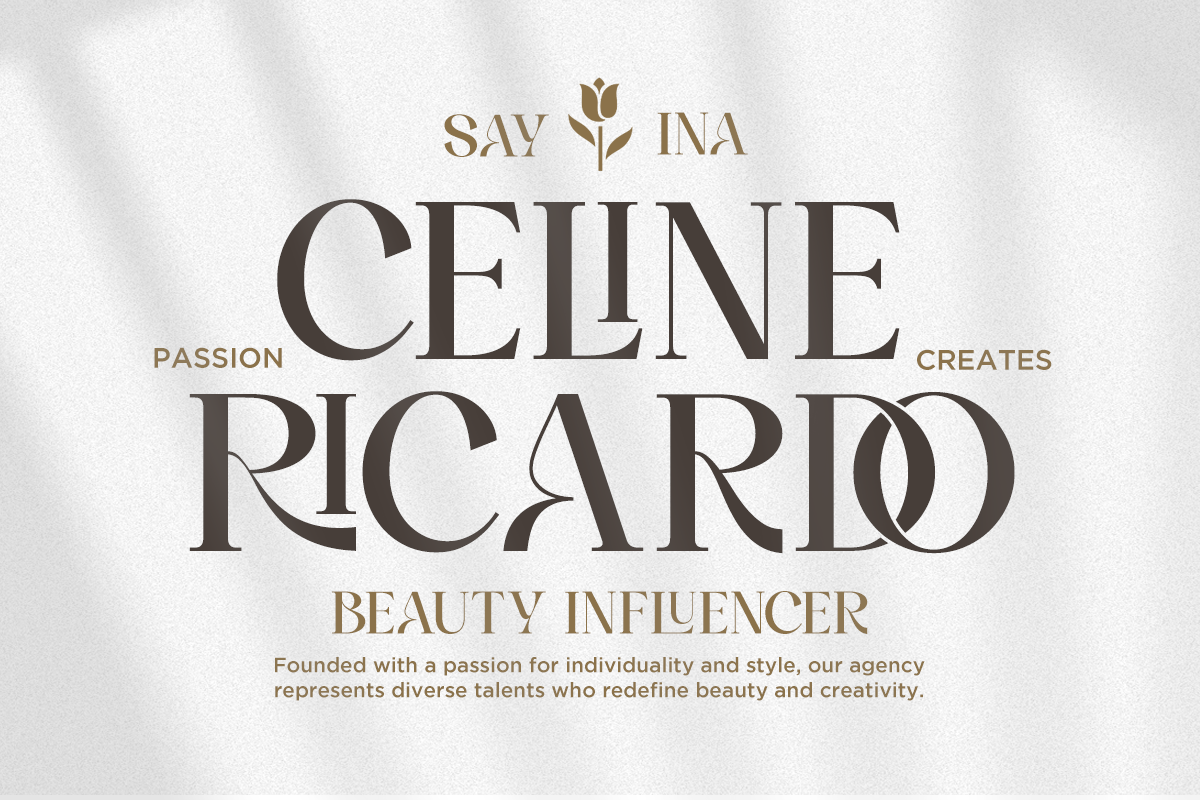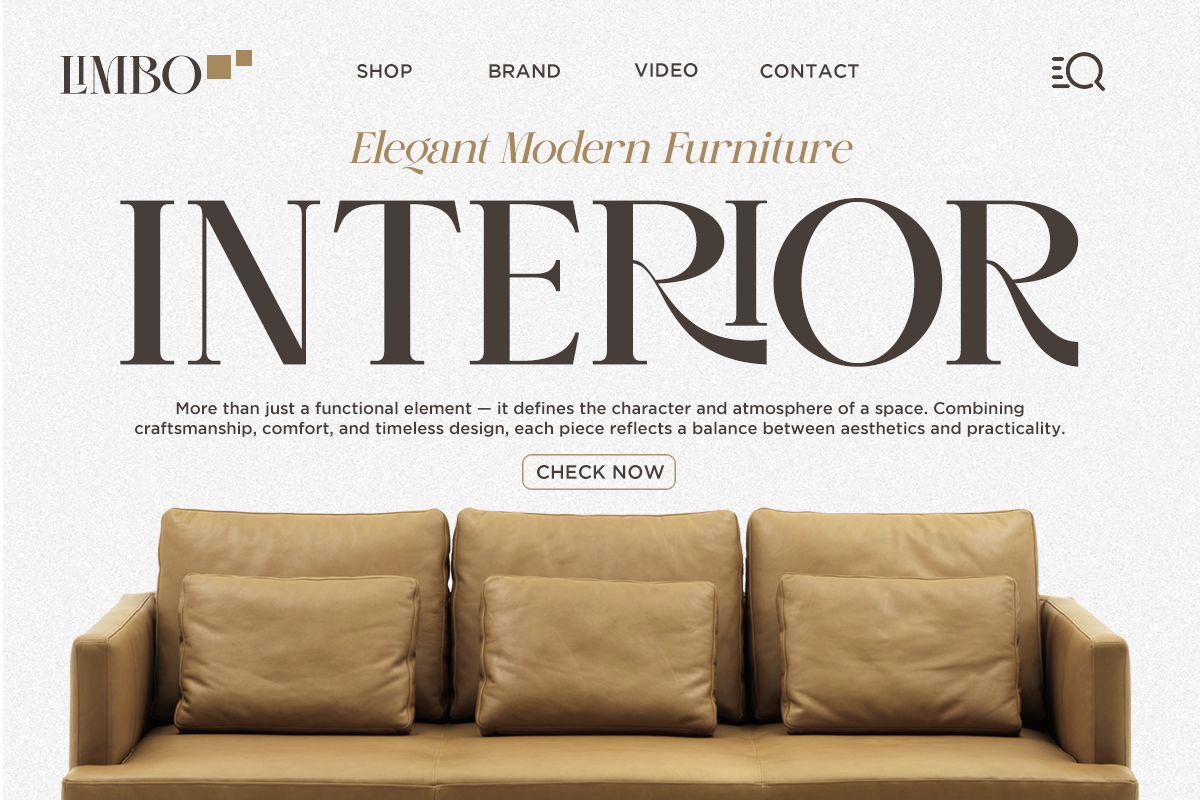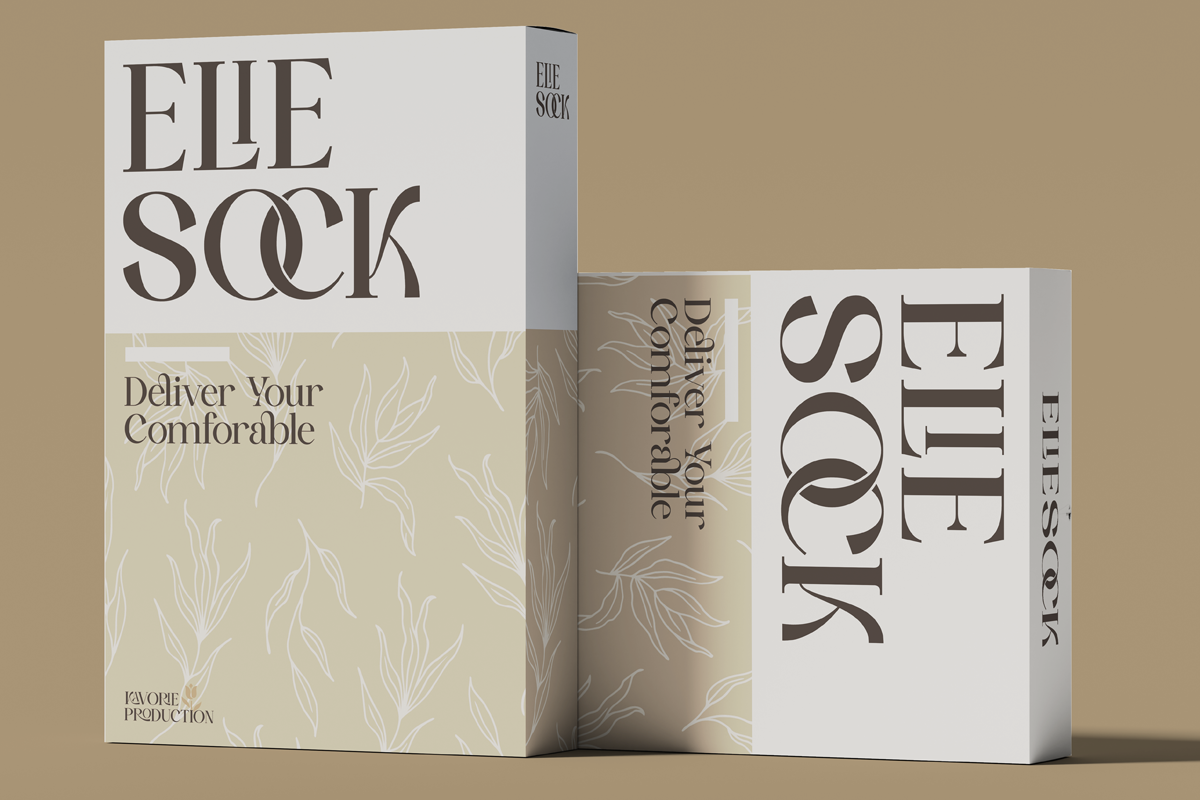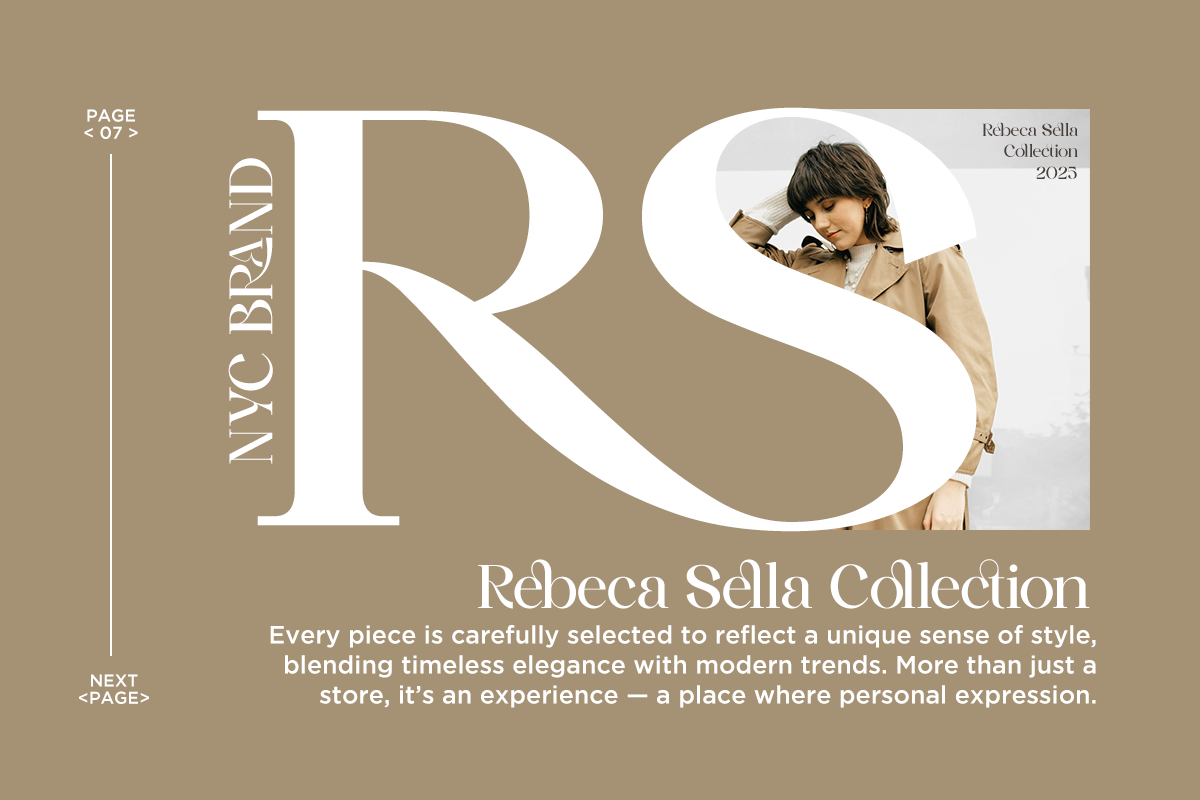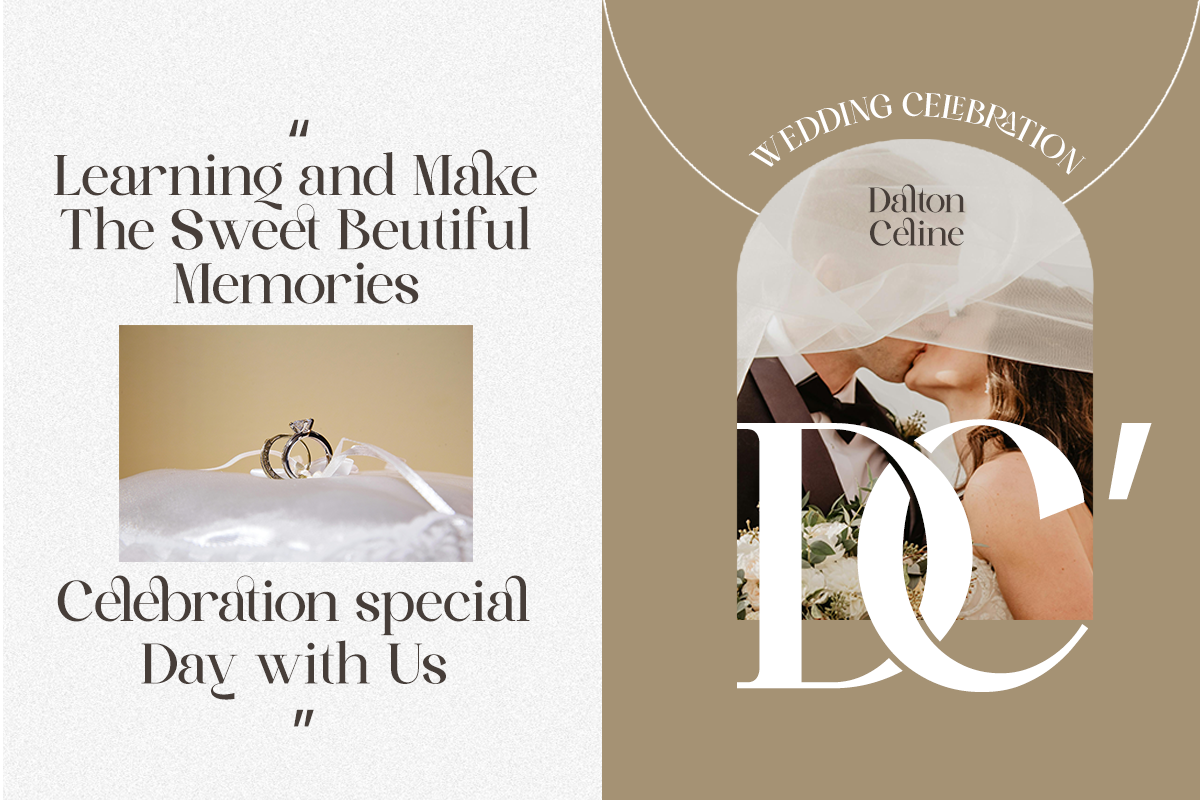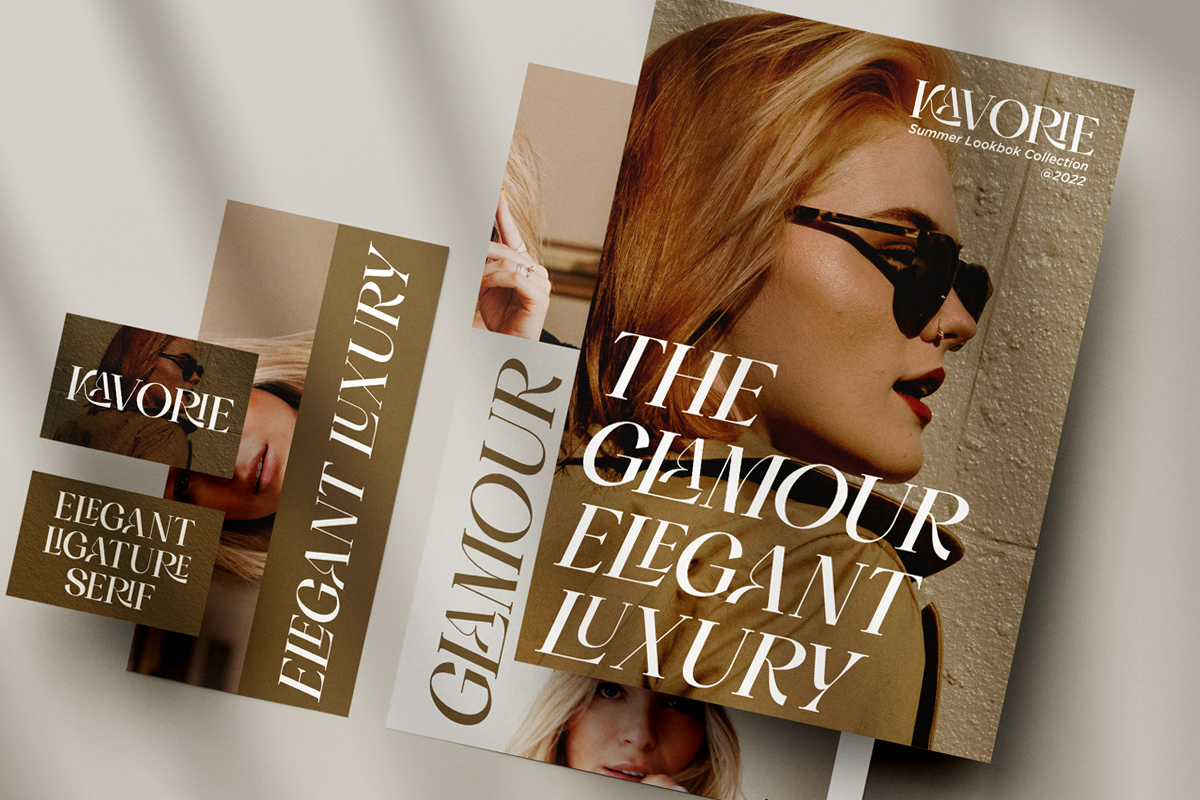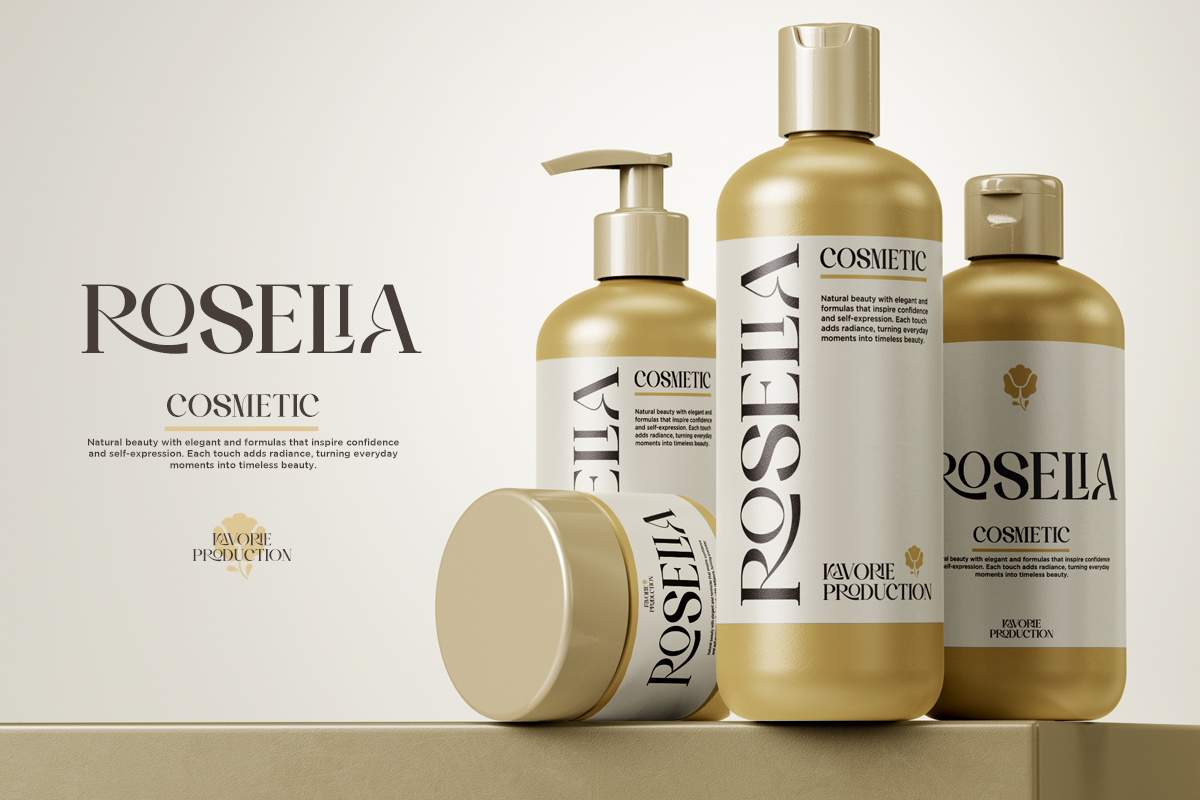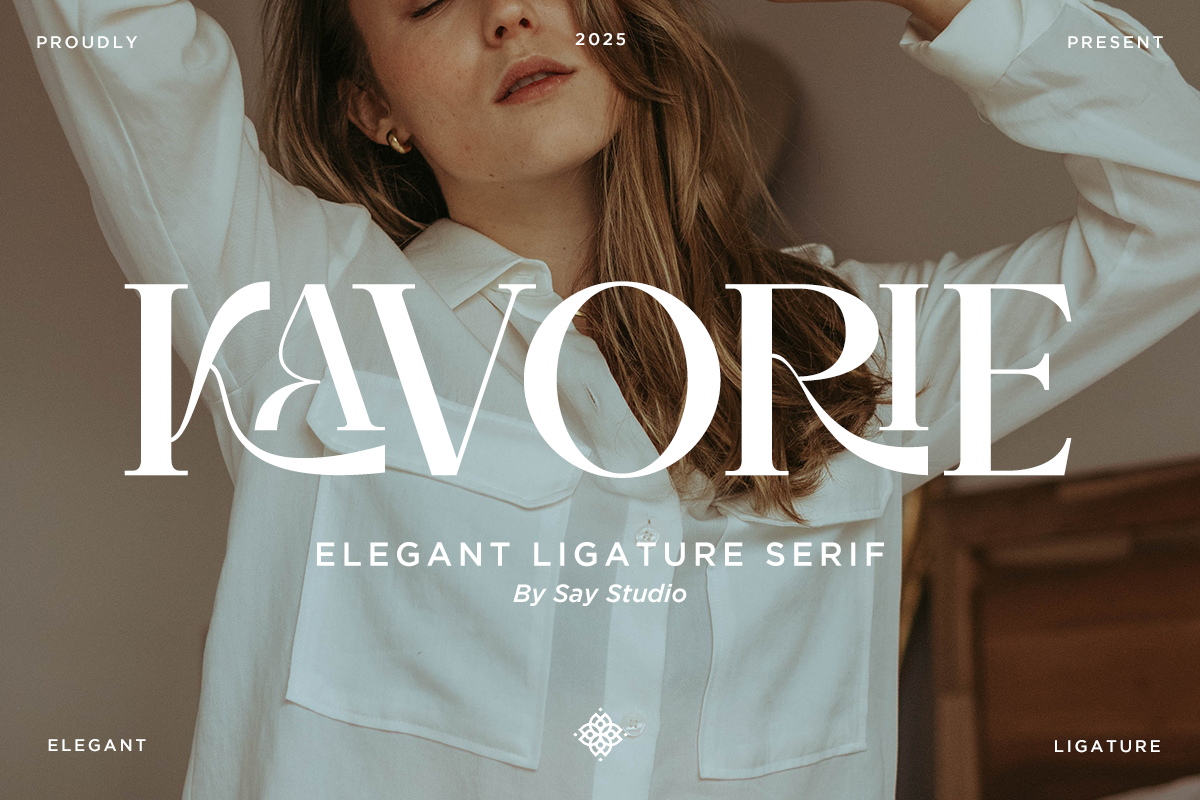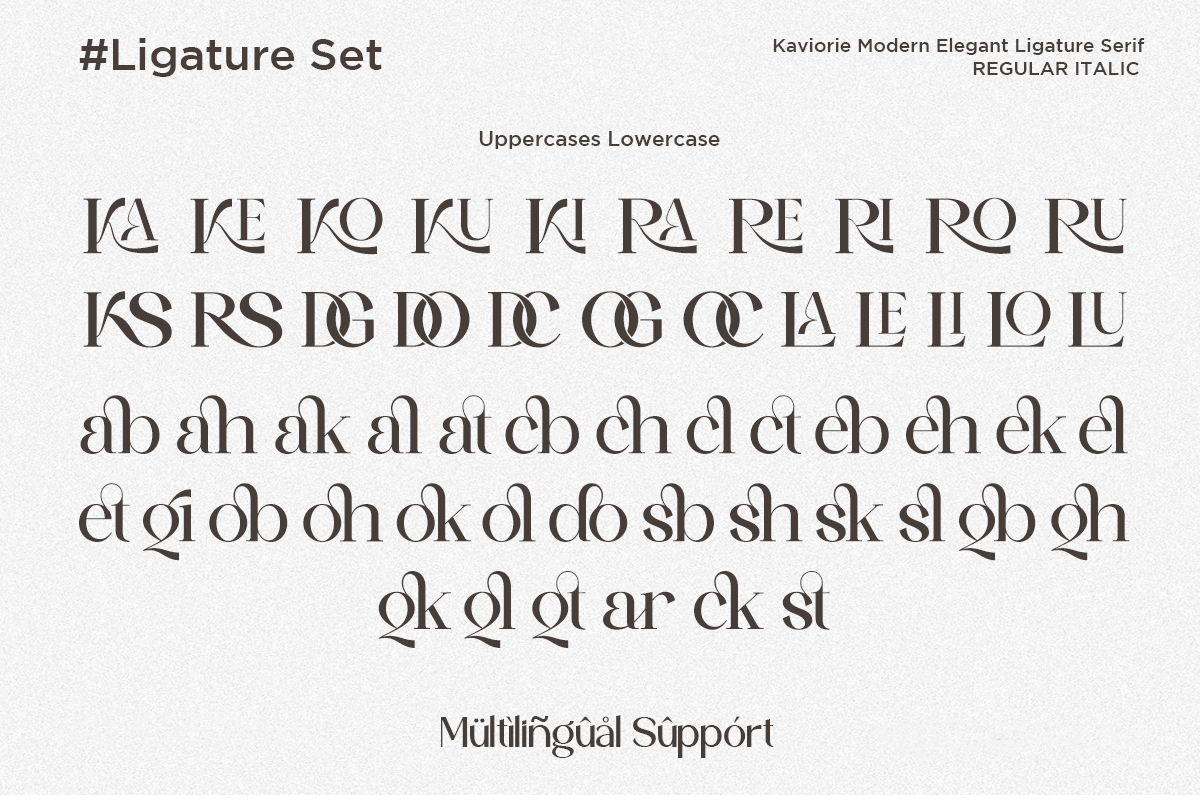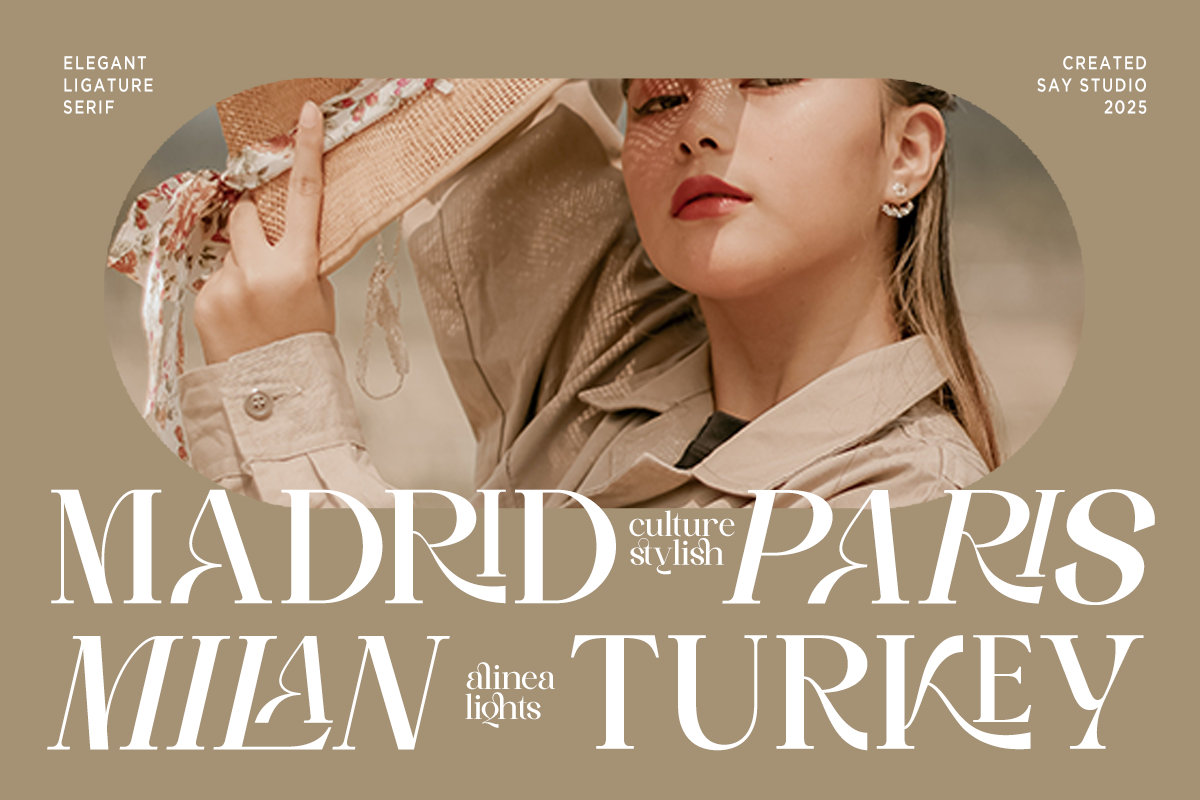
Kavorie - Luxury Ligature Serif Font
**Kavorie **is an elegant ligature serif typeface designed to capture timeless luxury with a contemporary touch. Featuring beautifully crafted ligatures, refined proportions, and graceful letterforms, Kavorie delivers a sophisticated visual presence that elevates every design. Its unique character blends classic serif elegance with modern styling, making it an ideal choice for premium branding and high-end creative projects.
Created for designers who appreciate refined typography, Kavorie is perfect for luxury branding, fashion editorials, beauty campaigns, cosmetic packaging, jewelry brands, interior design, boutique businesses, magazines, wedding stationery, websites, and premium marketing materials. Complete with multilingual support, OpenType ligatures, stylistic alternates, numerals, and punctuation, it offers exceptional flexibility for both print and digital applications.
Whether you're designing elegant logos, editorial headlines, product packaging, fashion lookbooks, social media content, or sophisticated brand identities, Kavorie provides a polished and memorable typographic experience. Its luxurious ligatures and balanced letterforms make it the perfect serif typeface for designers seeking elegance, exclusivity, and timeless visual appeal.
Regular and Italic
Stylistic Ligature
Number, Symbol, and Puntuation